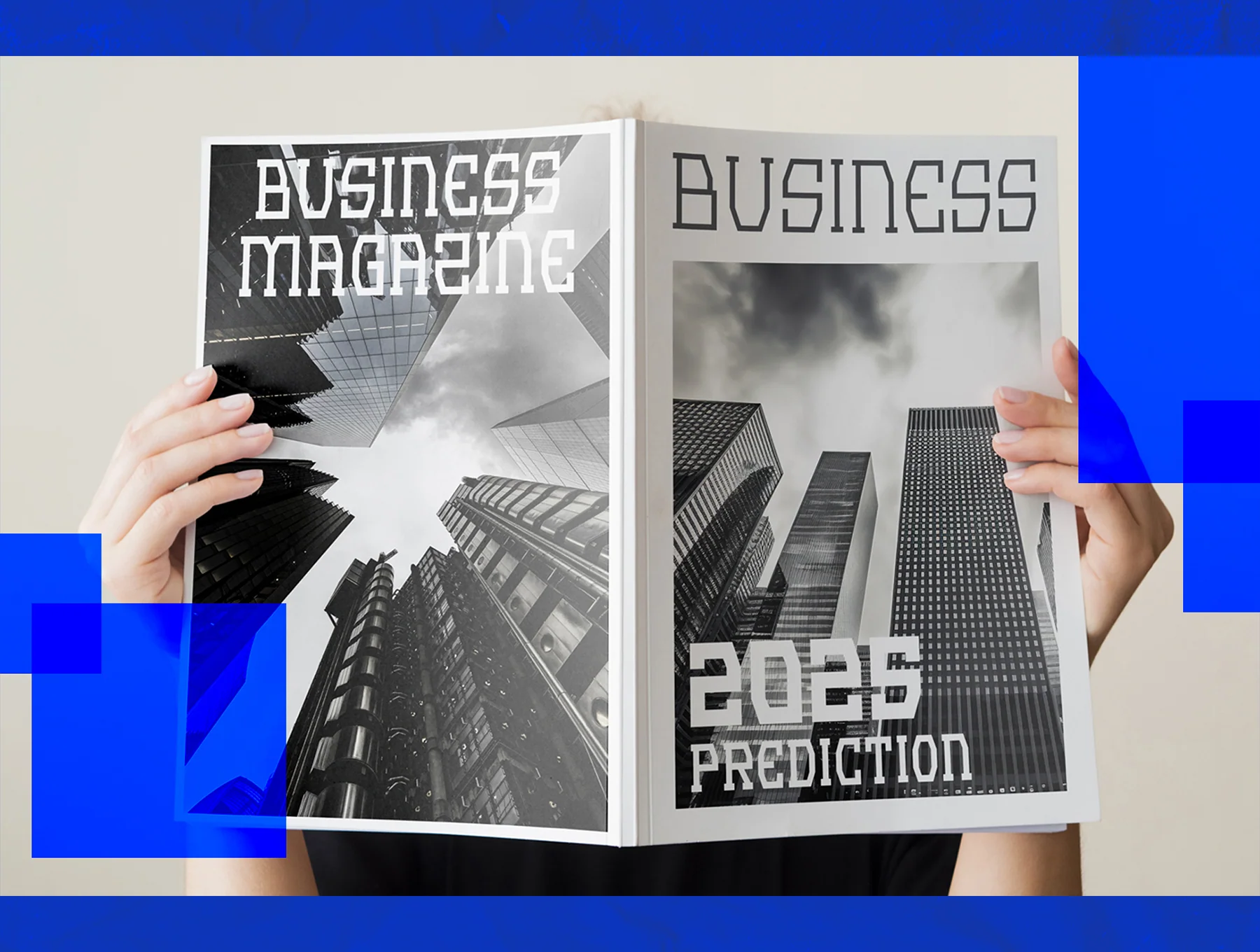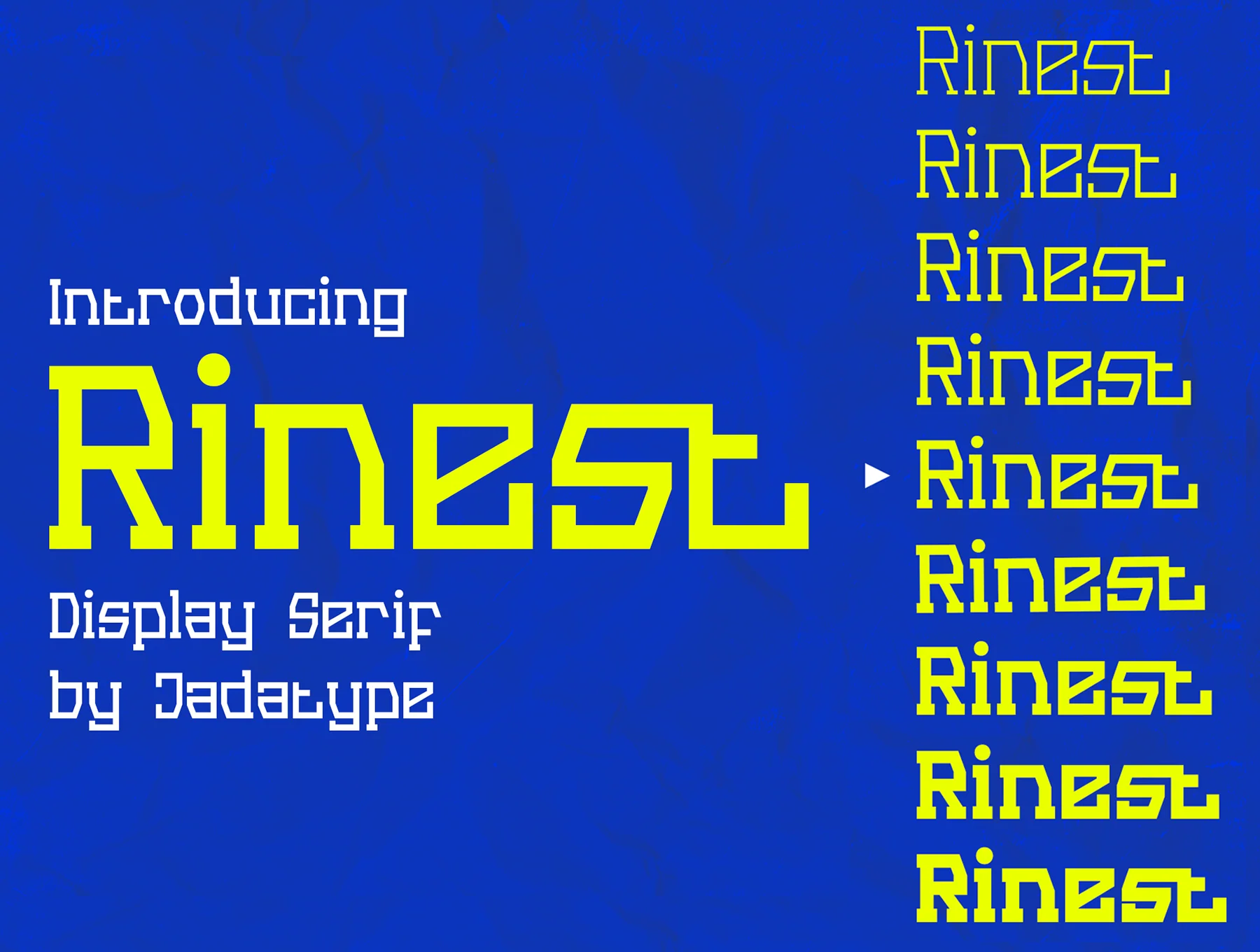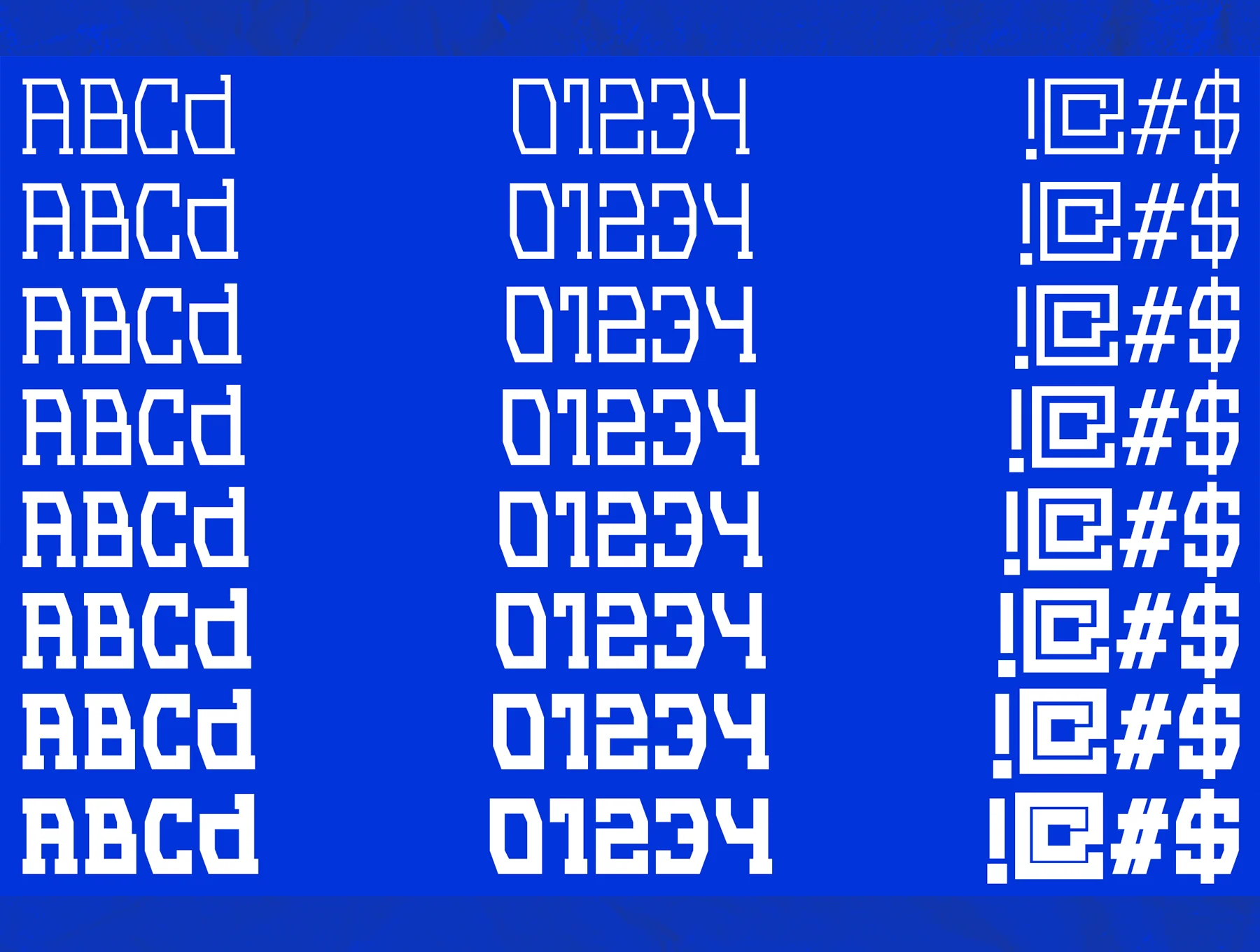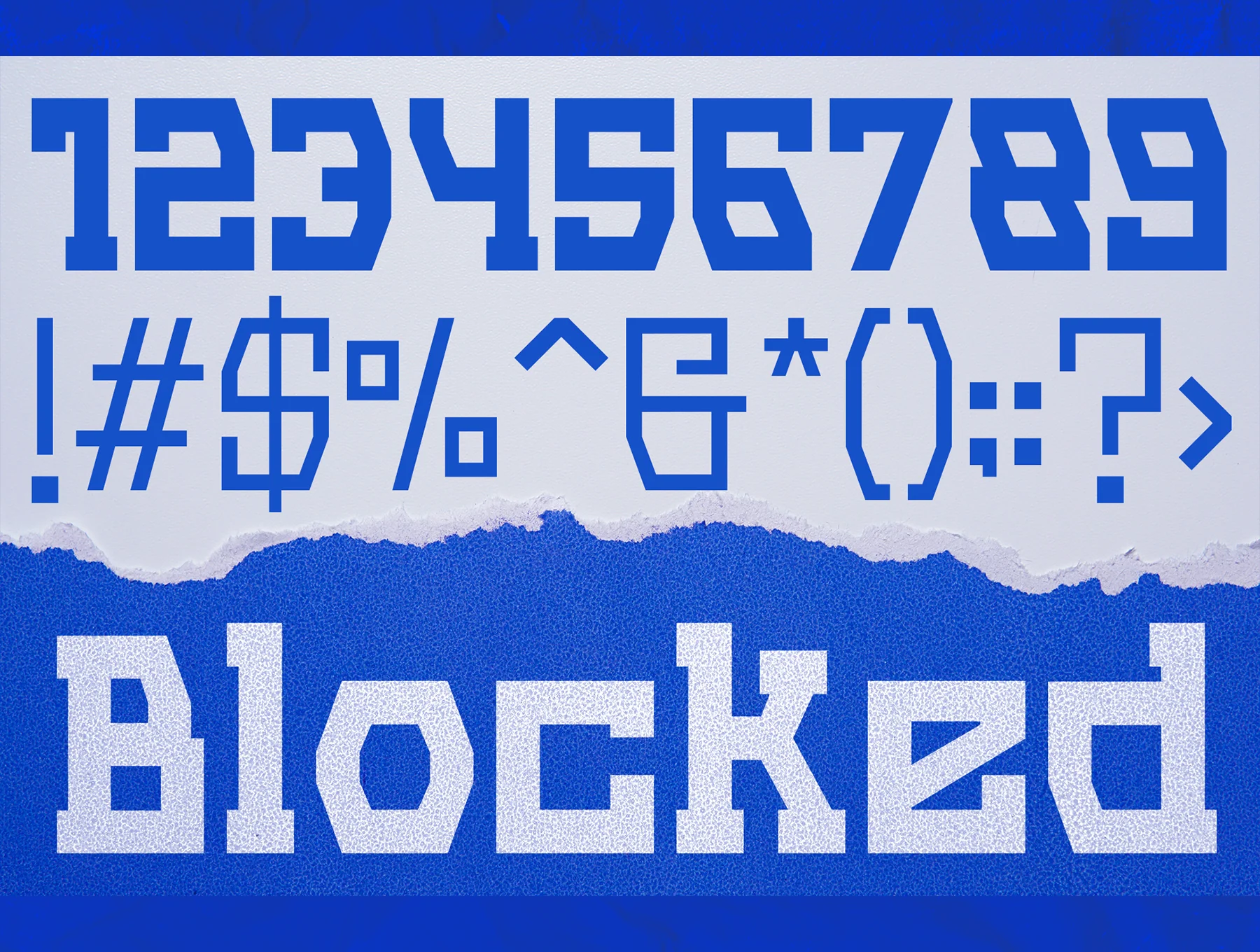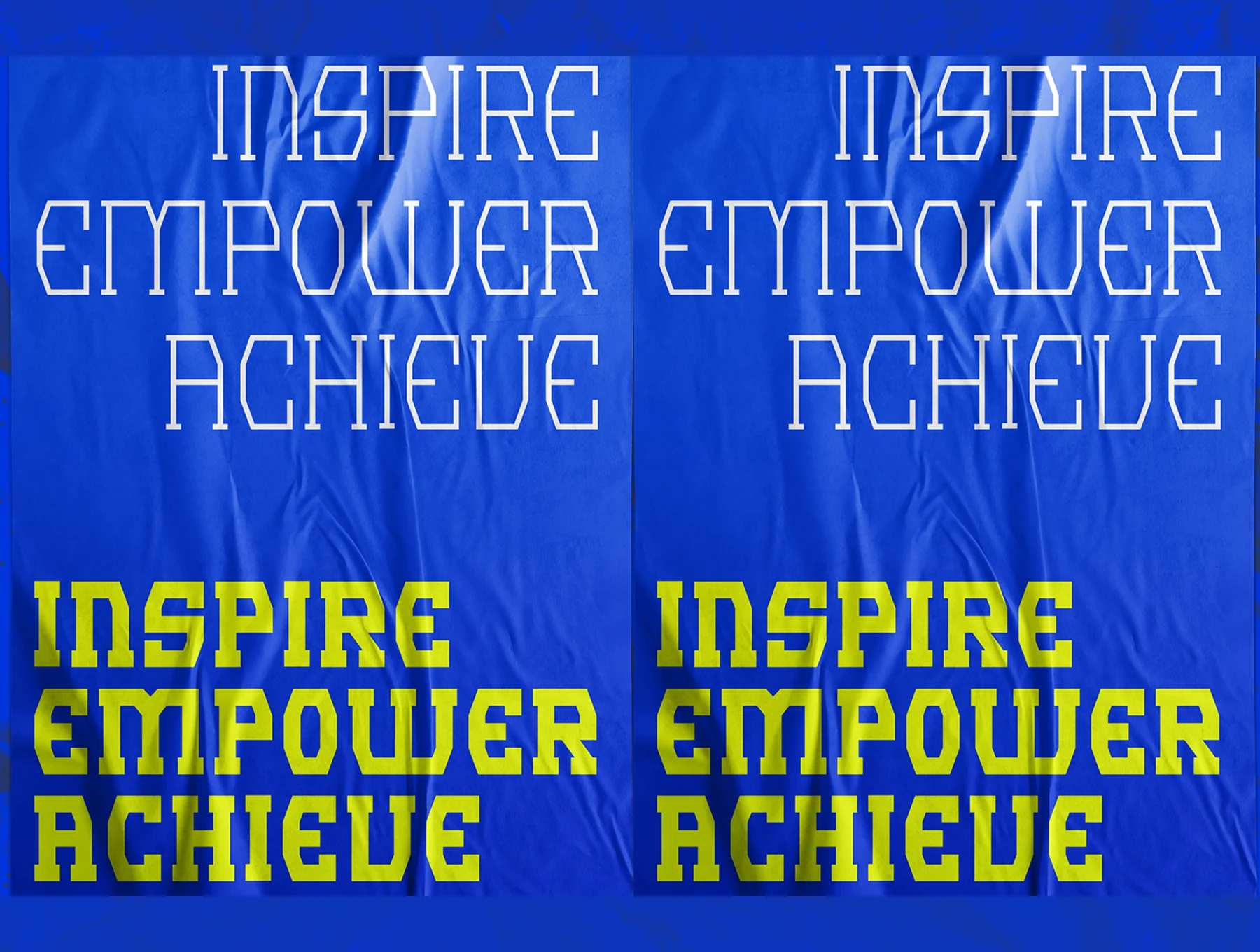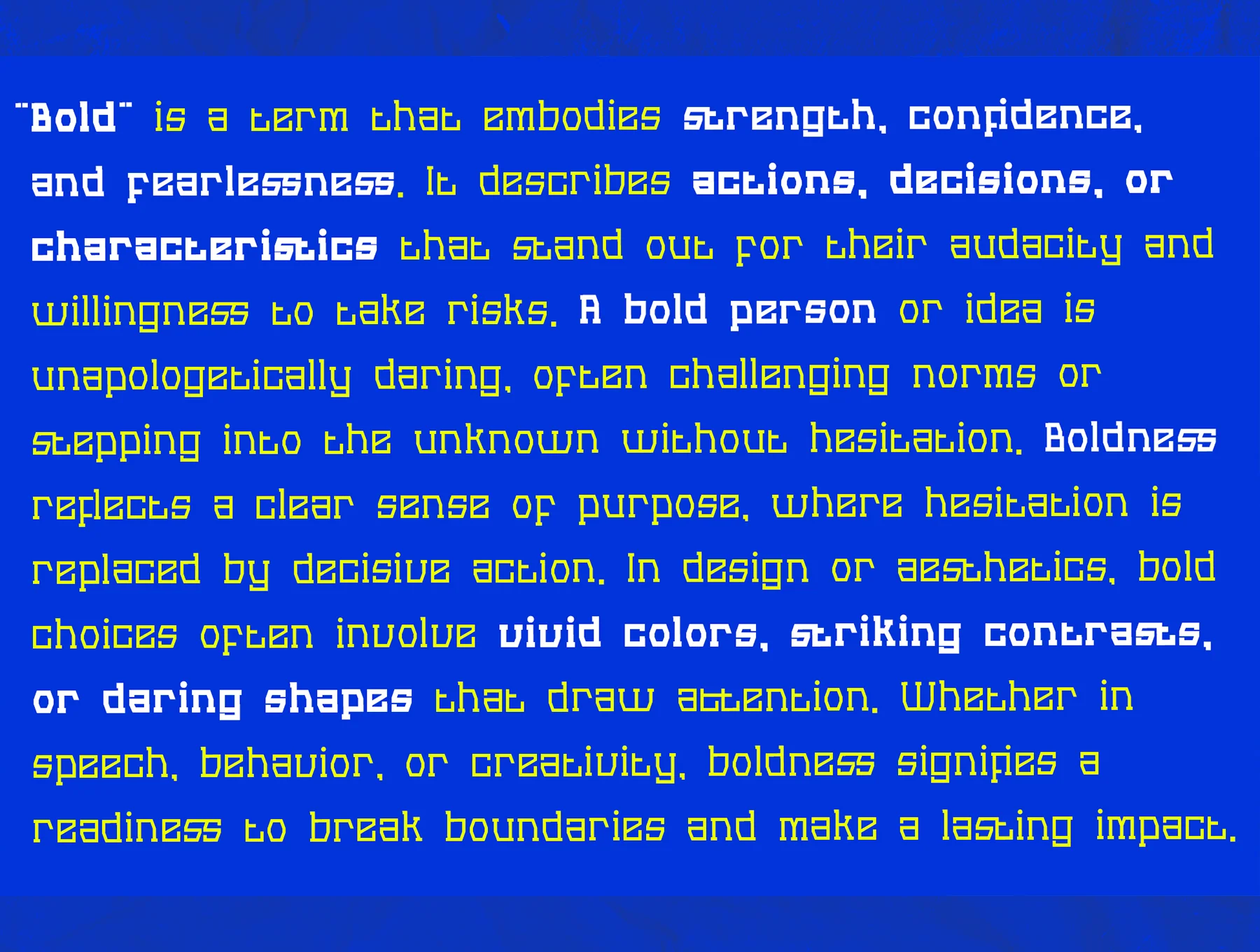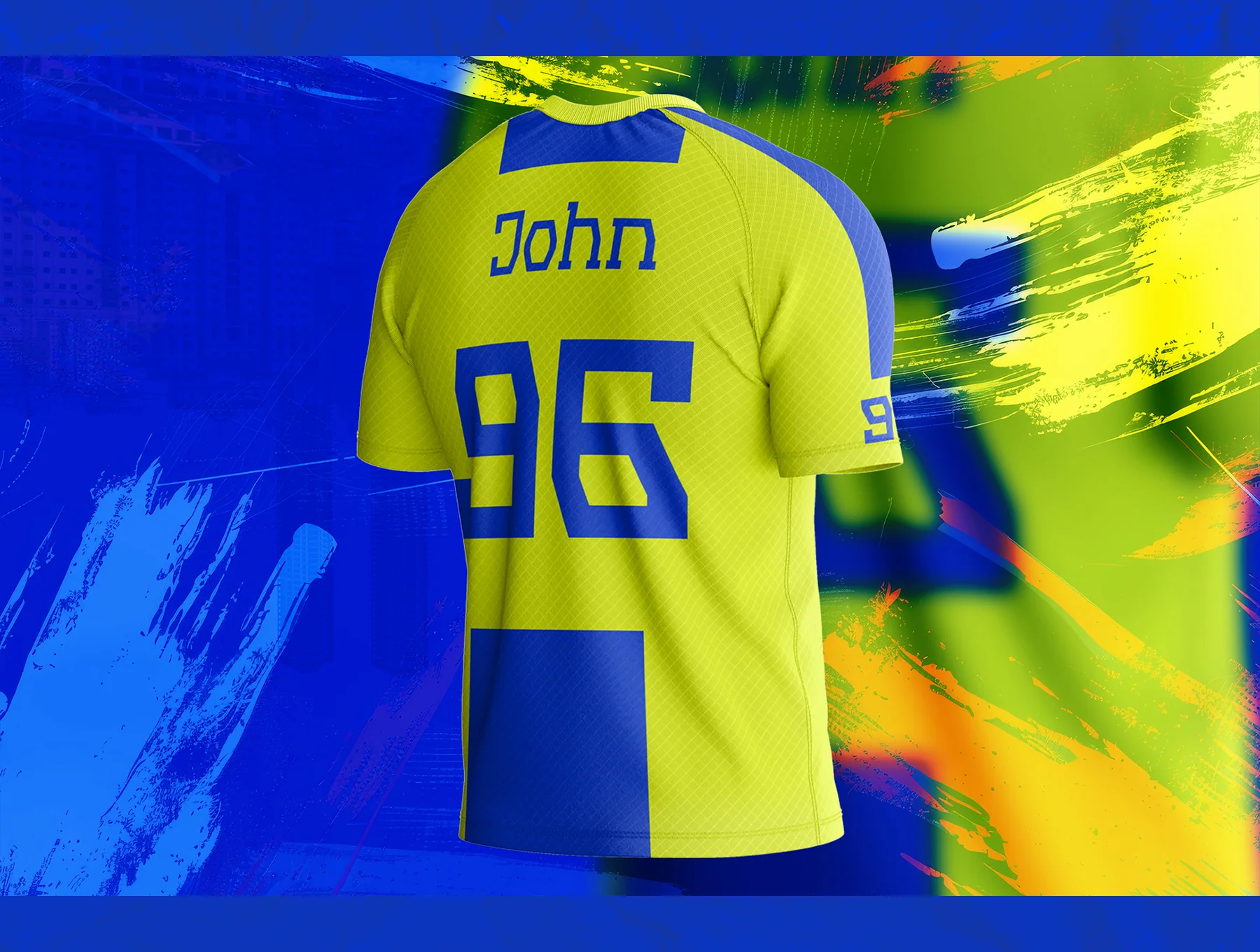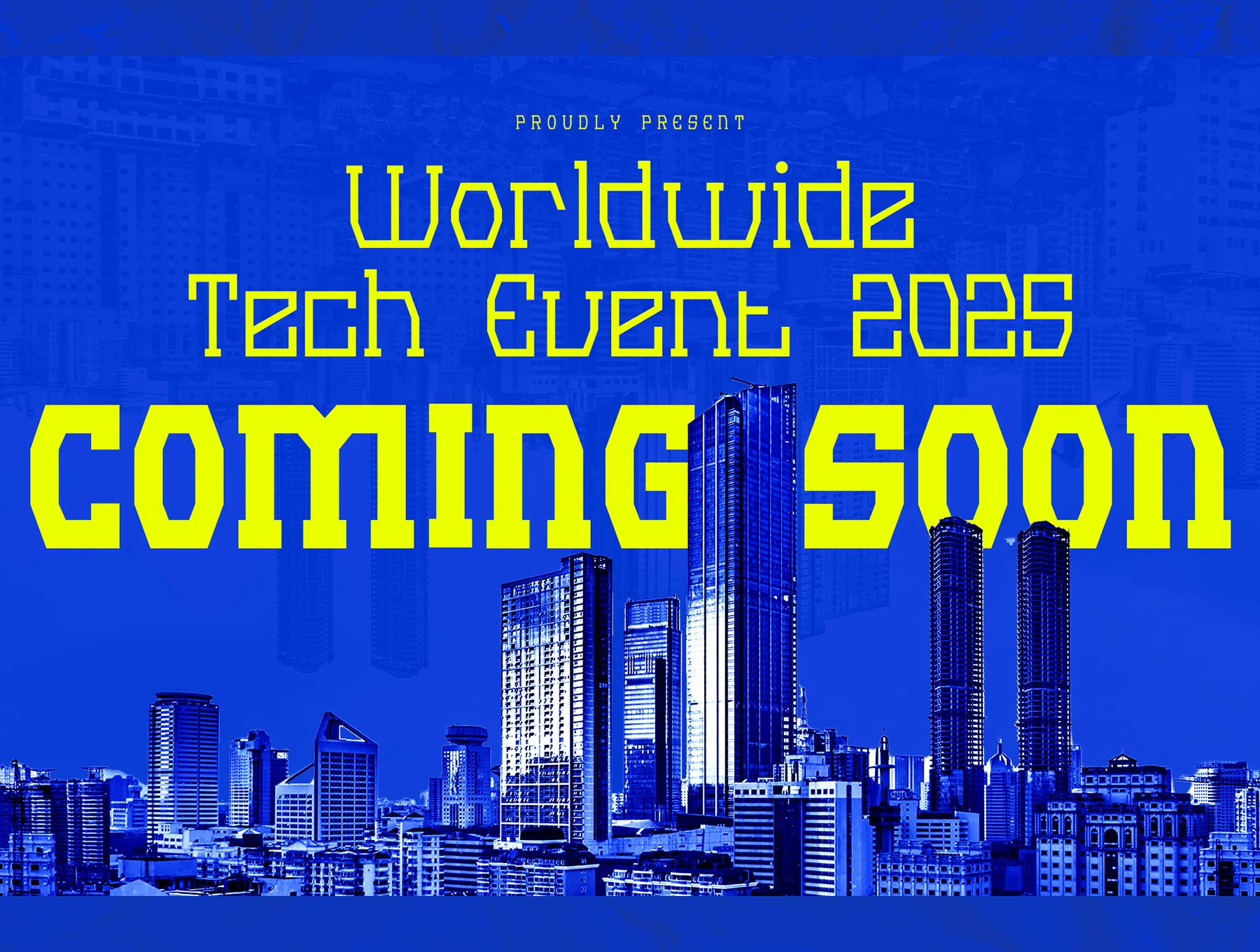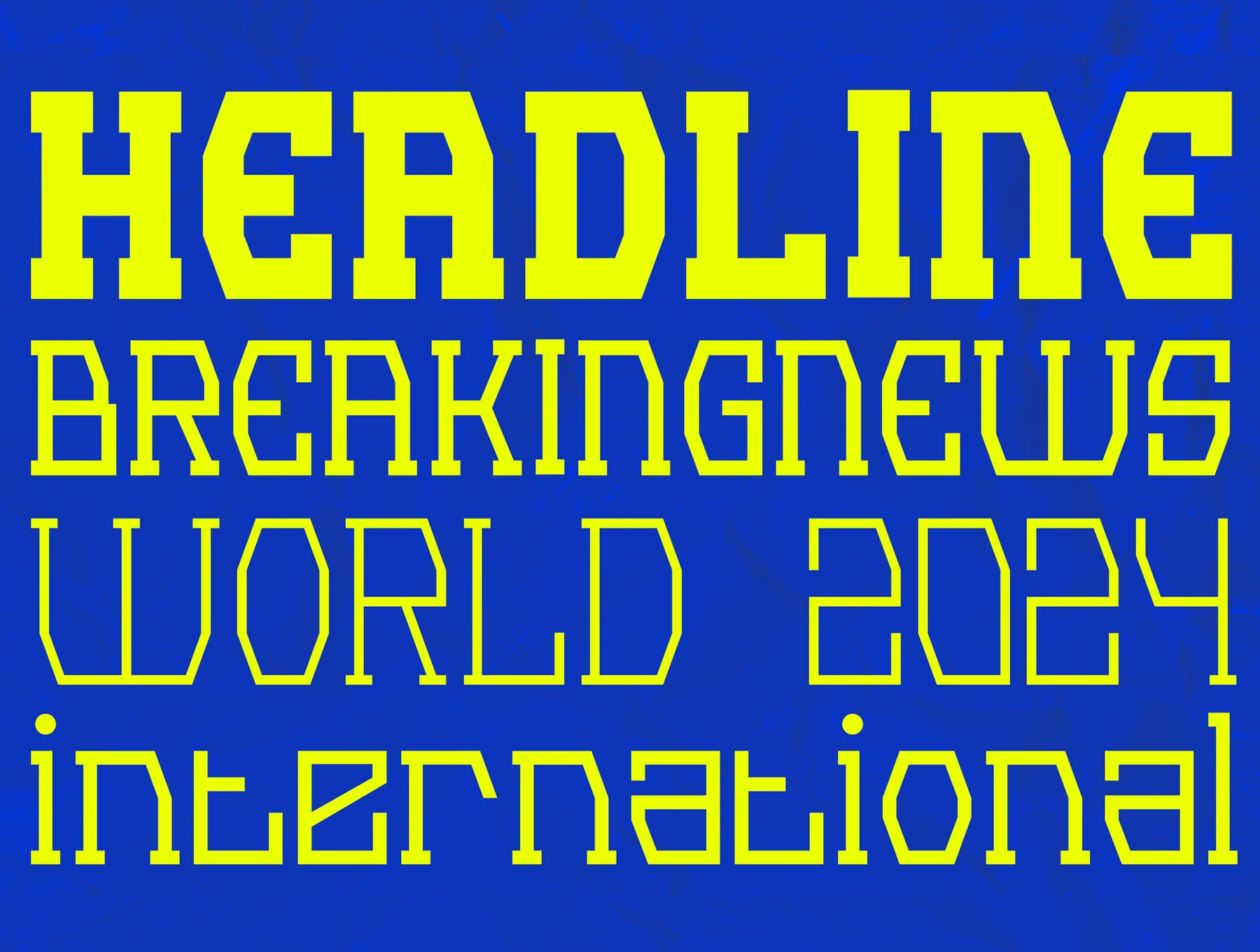
Rinest Typeface
Serif Display
Nine font weights
Supports multiple languages
243 glyphs and symbols
From Thin to Black
Rinest is a striking block-style display serif offered in 9 weights, ranging from Thin to Black. Its sturdy, geometric forms combine chunky serifs with sharp contrast, ideal for powerful headlines, logo designs, and brand identities. Its flexible, contemporary character brings standout impact to any project.